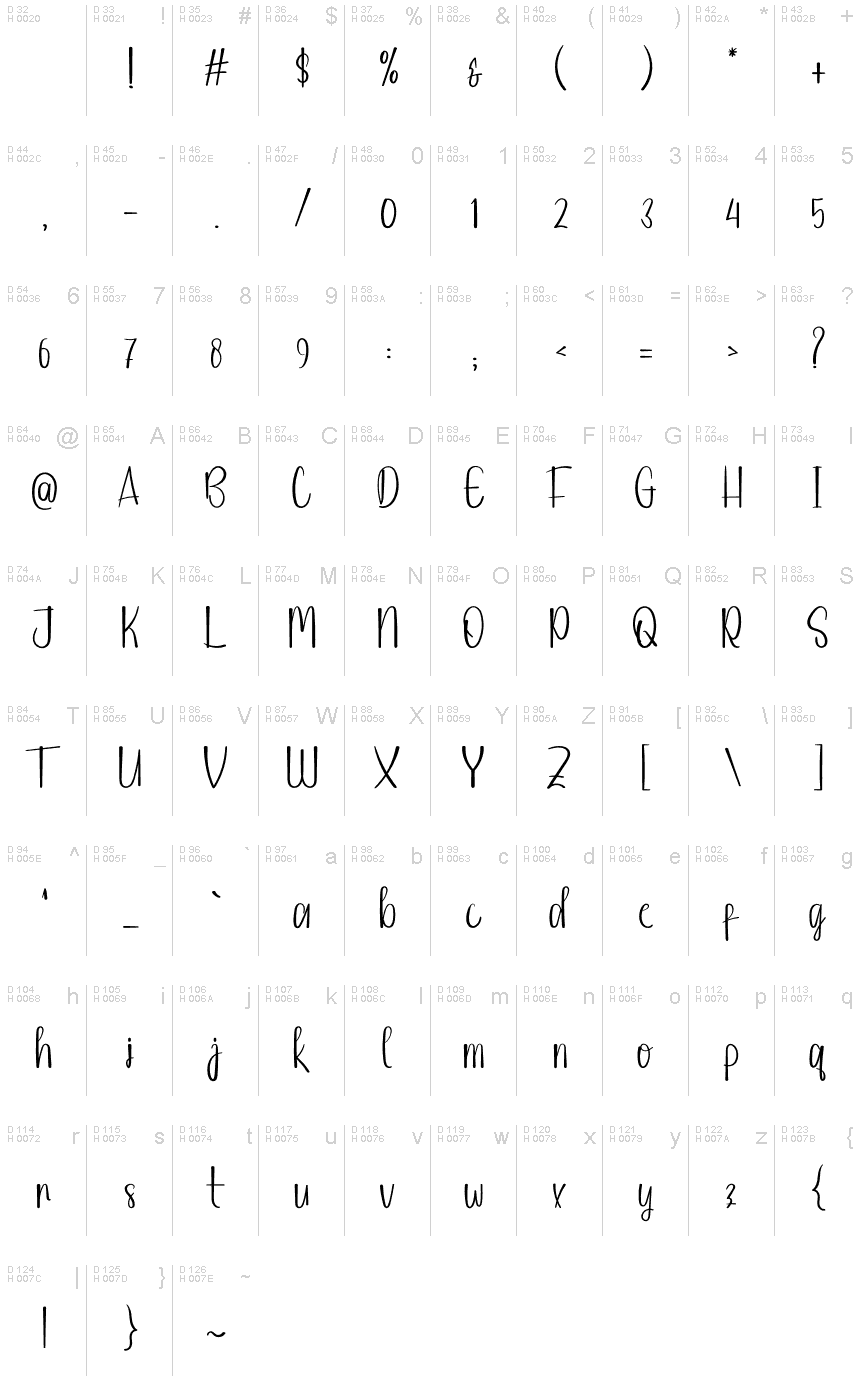
Shower
Shower is a light handwritten font from Inermedia Studio. It's suitable for creating eye-catching invitations, artistic magazine titles, making stylish logos, and adding a whimsical touch to any project.